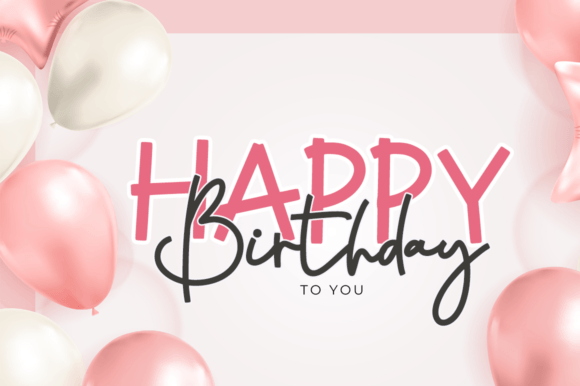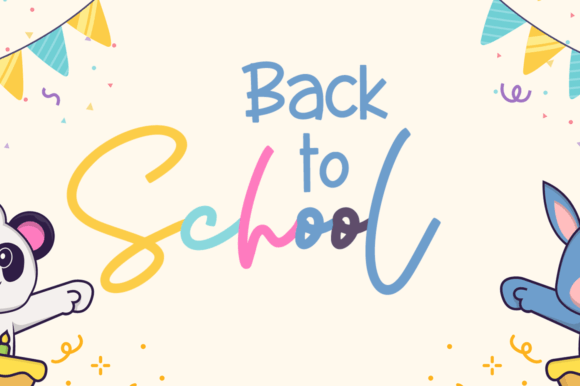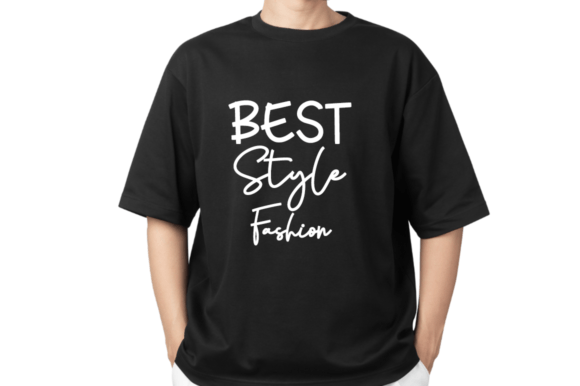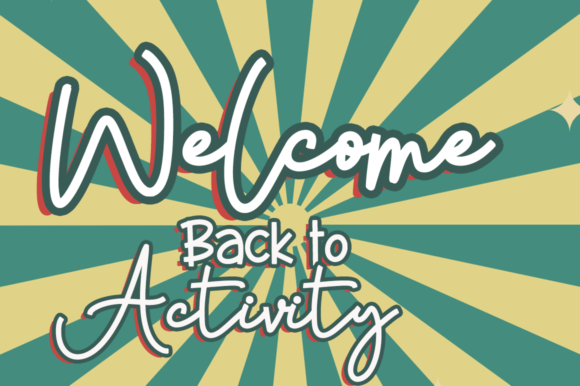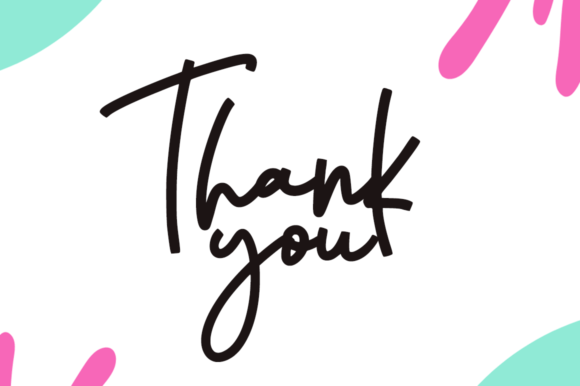
Introduction to Rainbow Cupcake Font
Remember that moment when you stumbled upon the perfect font for your creative project? The one that instantly elevated your design and brought your vision to life? For many designers, finding the right font is a crucial part of the creative process, and it’s a feeling that’s hard to replicate. But what if you could have two fonts in one, each with its own unique charm and character?
Enter the Rainbow Cupcake Font Duo, a match made in design heaven. This enchanting combination of handwritten typefaces is designed for maximum functionality, making it the perfect addition to any design project. With its high-quality design and transparent background, this font duo is a valuable resource for designers looking to add a touch of whimsy and personality to their work.
Whether you’re working on a product endorsement, creating a logo, or designing a book cover, the Rainbow Cupcake Font Duo is sure to captivate your audience and leave a lasting impression. And the best part? It’s available for free download, making it an accessible design resource for designers of all levels.
Key Features of Rainbow Cupcake Font
- High-quality, colorful design ideal for creative projects and designs.
- Features a transparent background, allowing for easy layering and customization.
- Includes a range of fun and playful characters, making it perfect for kids’ parties, baking, and other festive designs.
Honest Review: Rainbow Cupcake Font
As a designer, I’m always on the lookout for unique and fun design resources to elevate my creative projects. The Rainbow Cupcake Font is one such gem that caught my attention, and I’m excited to share my honest review with you.
- ✨ Vibrant and colorful design: The Rainbow Cupcake Font is a feast for the eyes, with its bright and playful colors that are sure to add a pop of fun to any design project.
- ✨ Transparent background: This feature makes it easy to layer the font over any background, giving you complete design freedom.
- ✨ High quality: The font is crisp and clear, even at larger sizes, making it perfect for titles and headings.
- ⚠️ Limited font styles: While the Rainbow Cupcake Font is available in a range of colors, it’s limited to a single font style, which may not be ideal for projects that require multiple font styles.
- ⚠️ Not suitable for formal projects: The playful and colorful design of the Rainbow Cupcake Font may not be suitable for formal or professional projects, where a more subdued tone is required.
Overall, I’m impressed with the Rainbow Cupcake Font, and I think it’s a great addition to any designer’s toolkit. Whether you’re working on a fun and creative project or just need a unique touch, this font is sure to deliver. And the best part? It’s a free download, making it an accessible resource for designers of all levels.
The Rainbow Cupcake Font is perfect for various design projects, including creating social media graphics, invitations, logos, and more. It’s also great for adding a touch of creativity to presentations, reports, and other documents.
To get the most out of the Rainbow Cupcake Font, experiment with different font sizes, colors, and combinations. You can also use the font in conjunction with other design elements, such as images and graphics, to create unique and eye-catching designs.